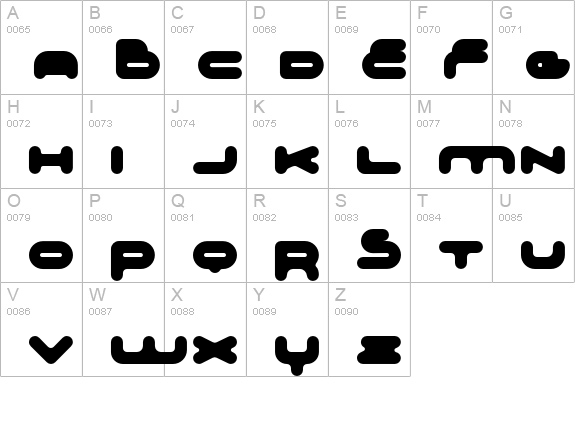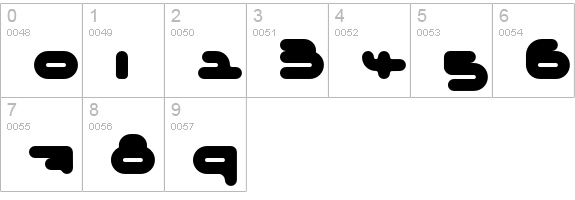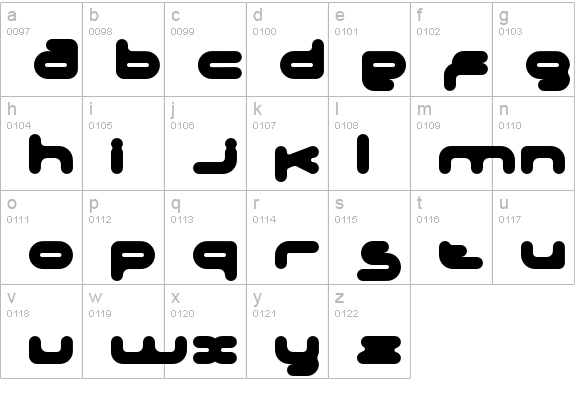
Adrenalin-Bubble Font Details
Introducing Adrenalin-Bubble font, a dynamic and energetic typeface that is sure to make your designs pop! With its bold, bubbly letters and modern appearance, this font exudes a sense of excitement and vitality. Perfect for use in posters, logos, branding, and more, Adrenalin-Bubble font is the ideal choice for projects that require a touch of fun and playfulness. The best part? Adrenalin-Bubble font is completely free to download at FontsMarket.com! That's right, you can easily access this eye-catching font without breaking the bank. So why wait? Add a burst of energy to your designs with Adrenalin-Bubble font today!